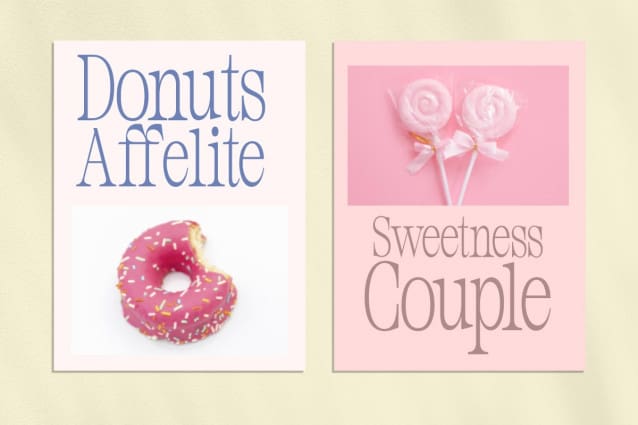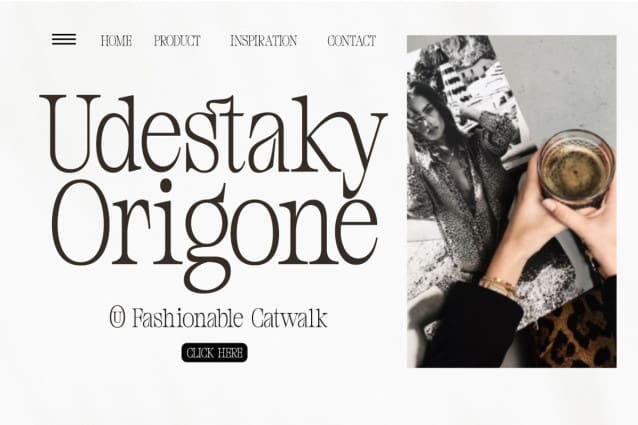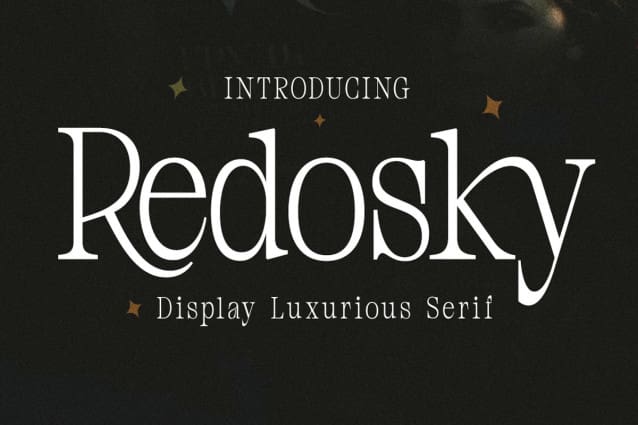
Redosky Font
Redosky Font is a versatile font with a clean, sleek serif form. The typeface as a whole is strong in conveying order and harmony between letters. Best used as Instagram, poster, web design, magazine, logo or product.